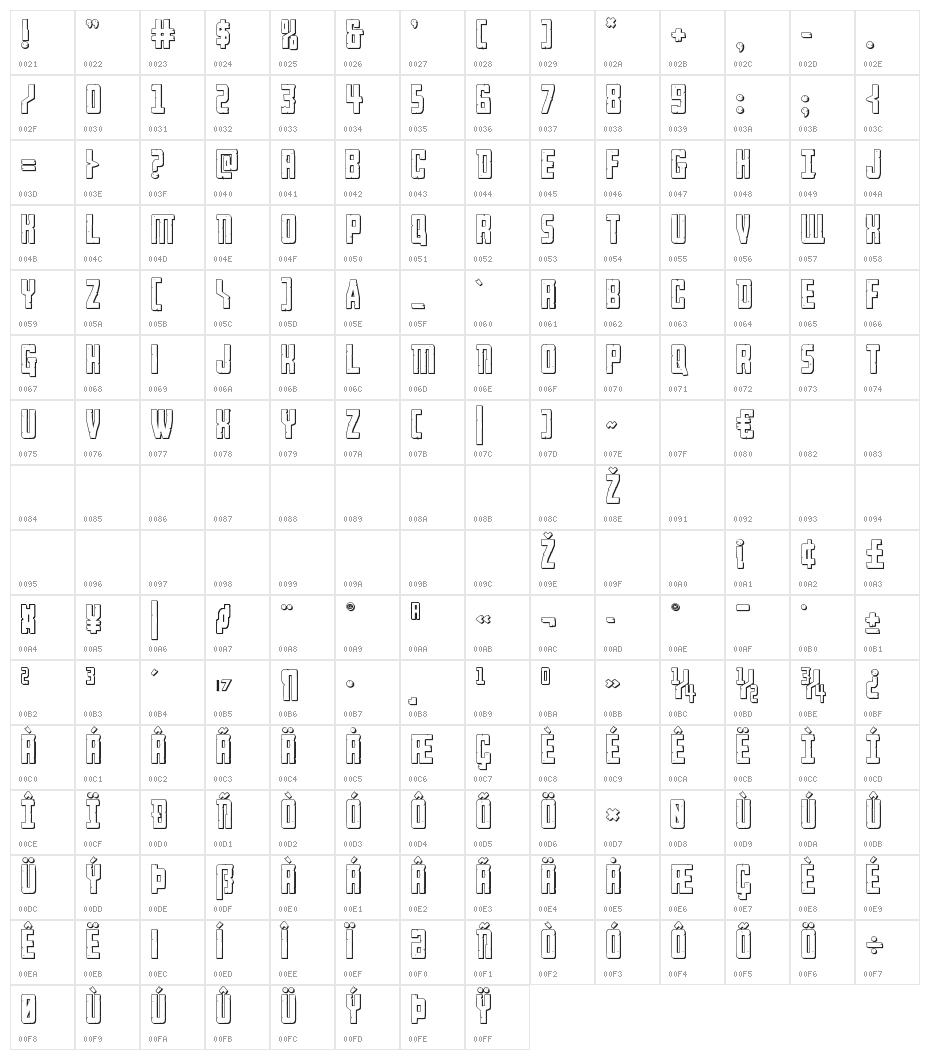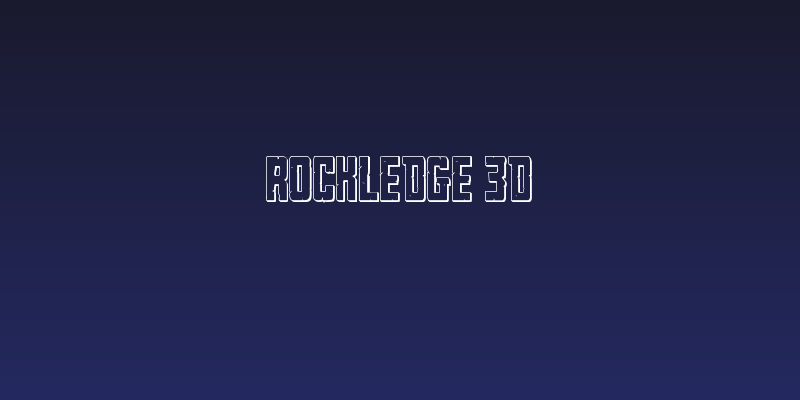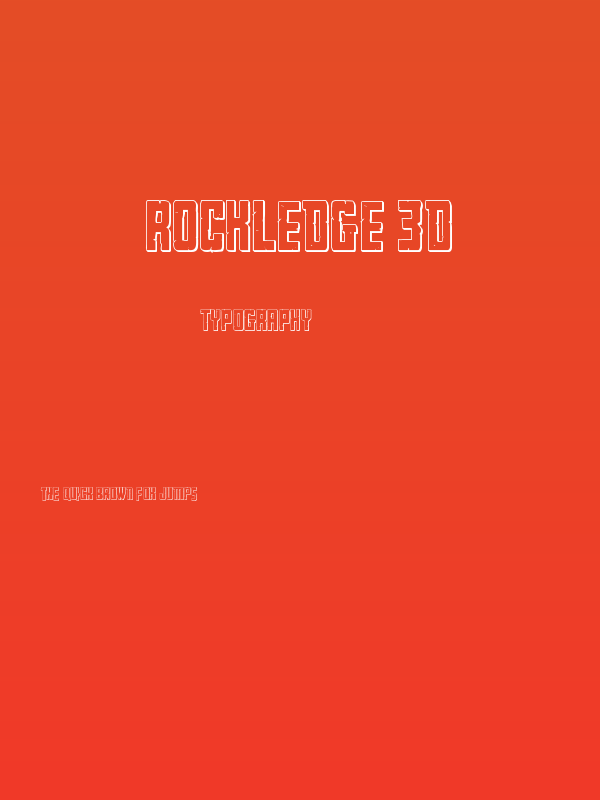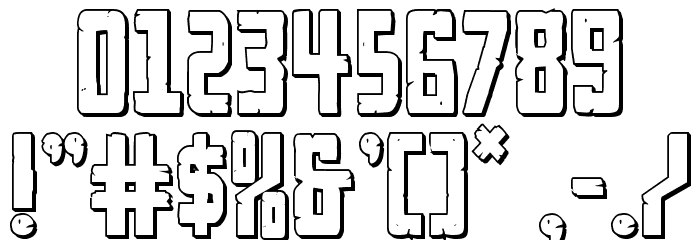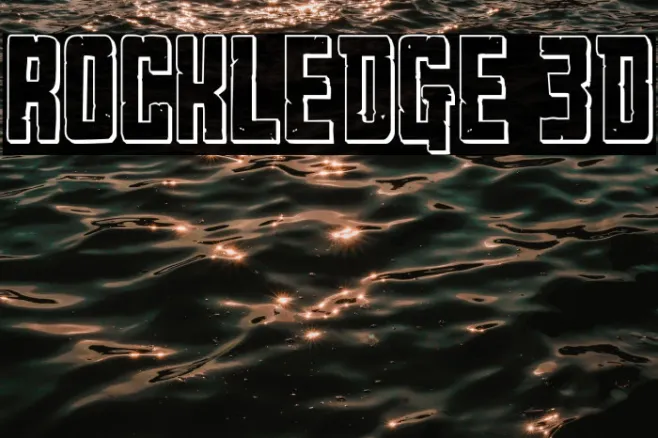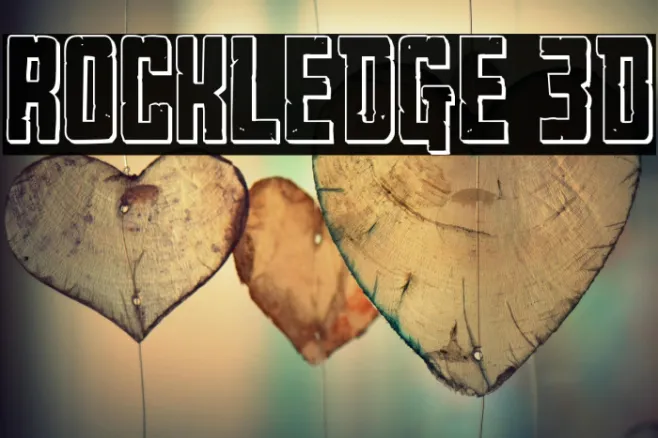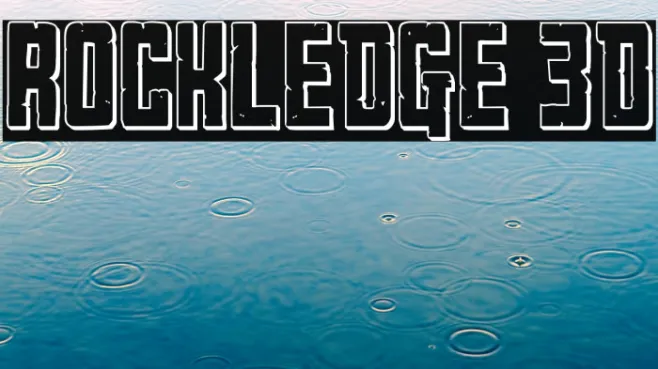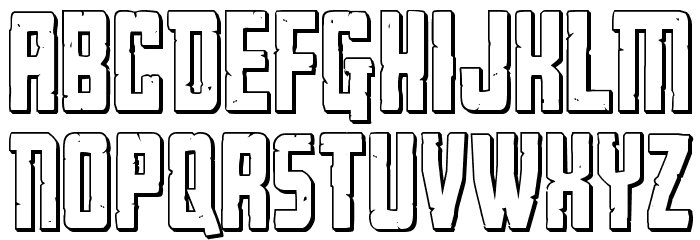
Rockledge 3D Font
Rockledge 3D Description
This font features a bold, three-dimensional design with a blocky and geometric structure. Each character is outlined, creating a shadow effect that gives the font a strong, impactful appearance. The uppercase and lowercase letters maintain a consistent width, enhancing the uniformity of the typeface. The numerals and special characters are designed with the same boldness and 3D effect, ensuring cohesion across all elements. The font's style is reminiscent of retro video game graphics or comic book titles, making it ideal for projects that require a sense of fun and nostalgia.
| Overall Style | Retro, Decorative |
| Proposed Projects | Ideal for video game titles, comic book covers, posters, and any project needing a bold, retro aesthetic. |